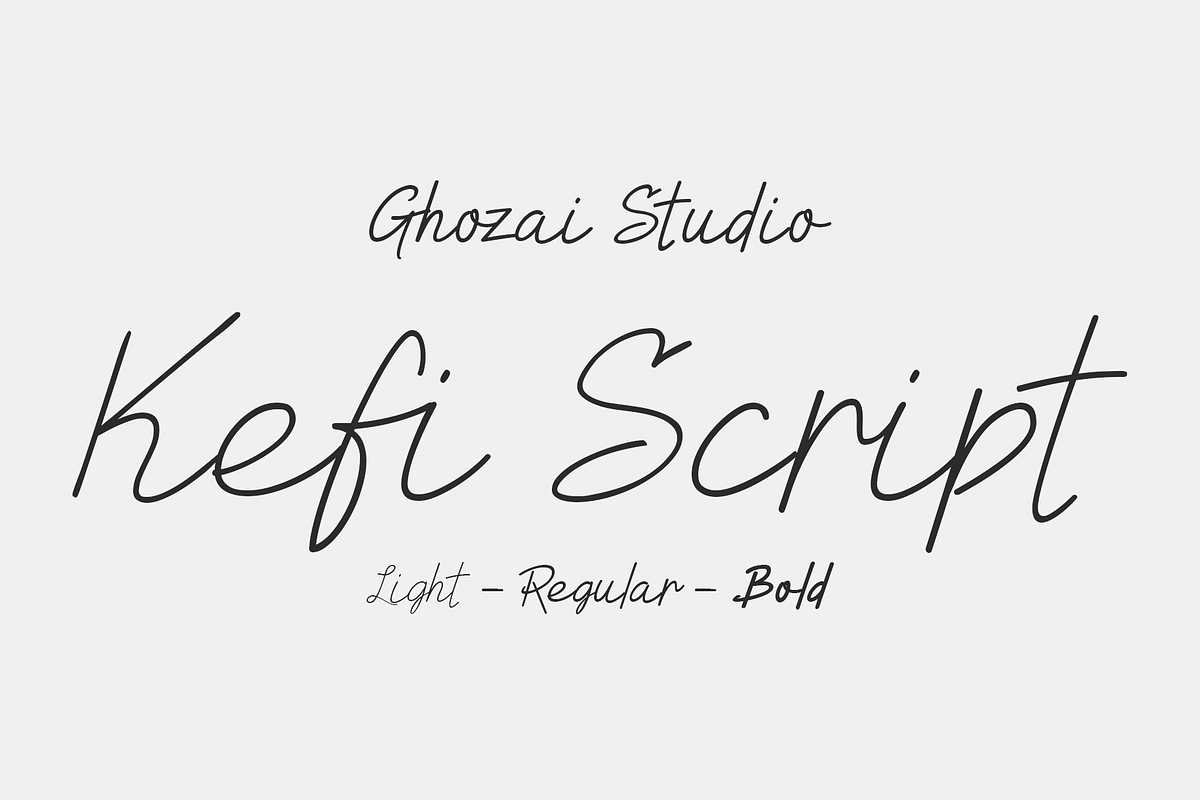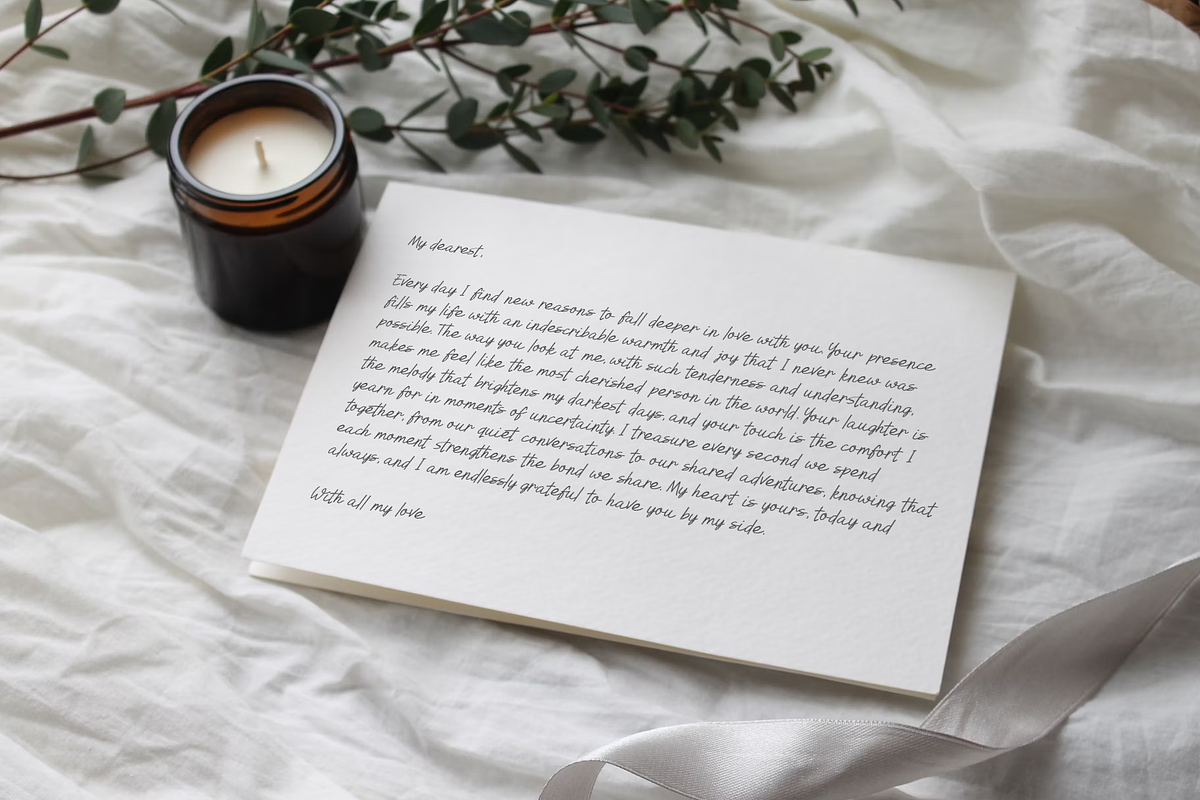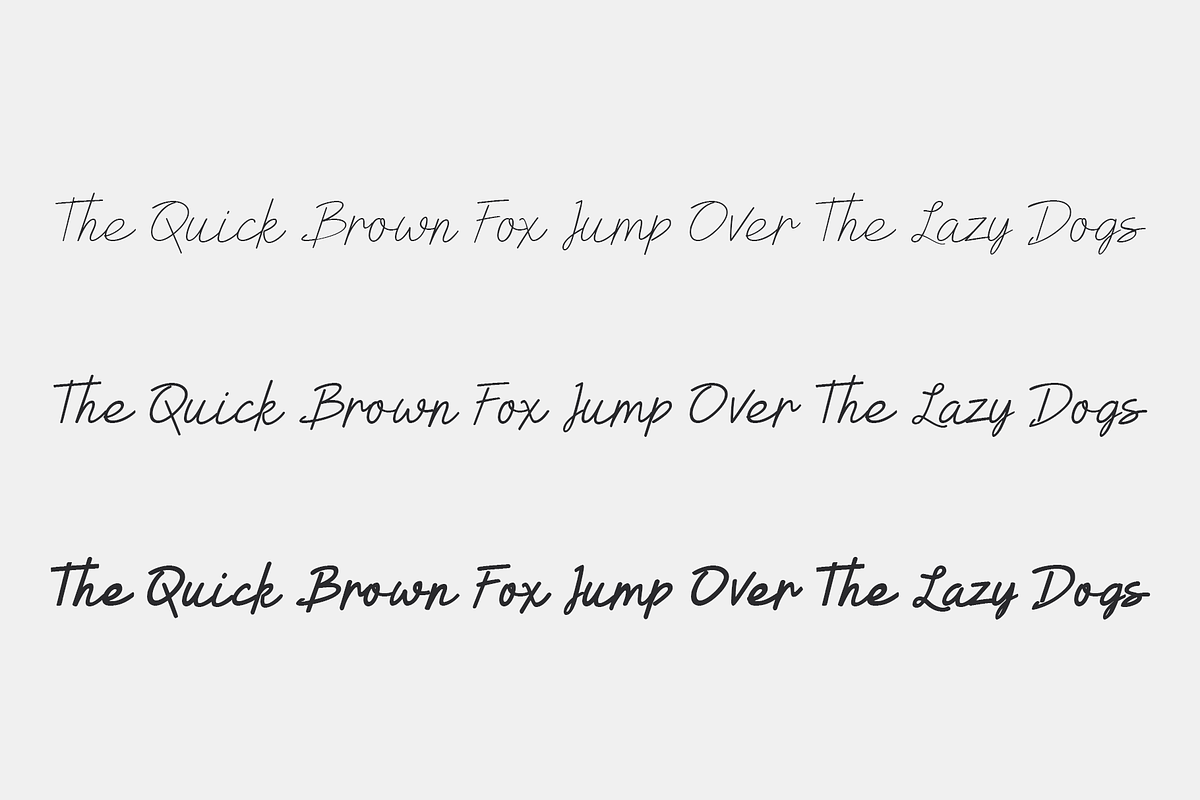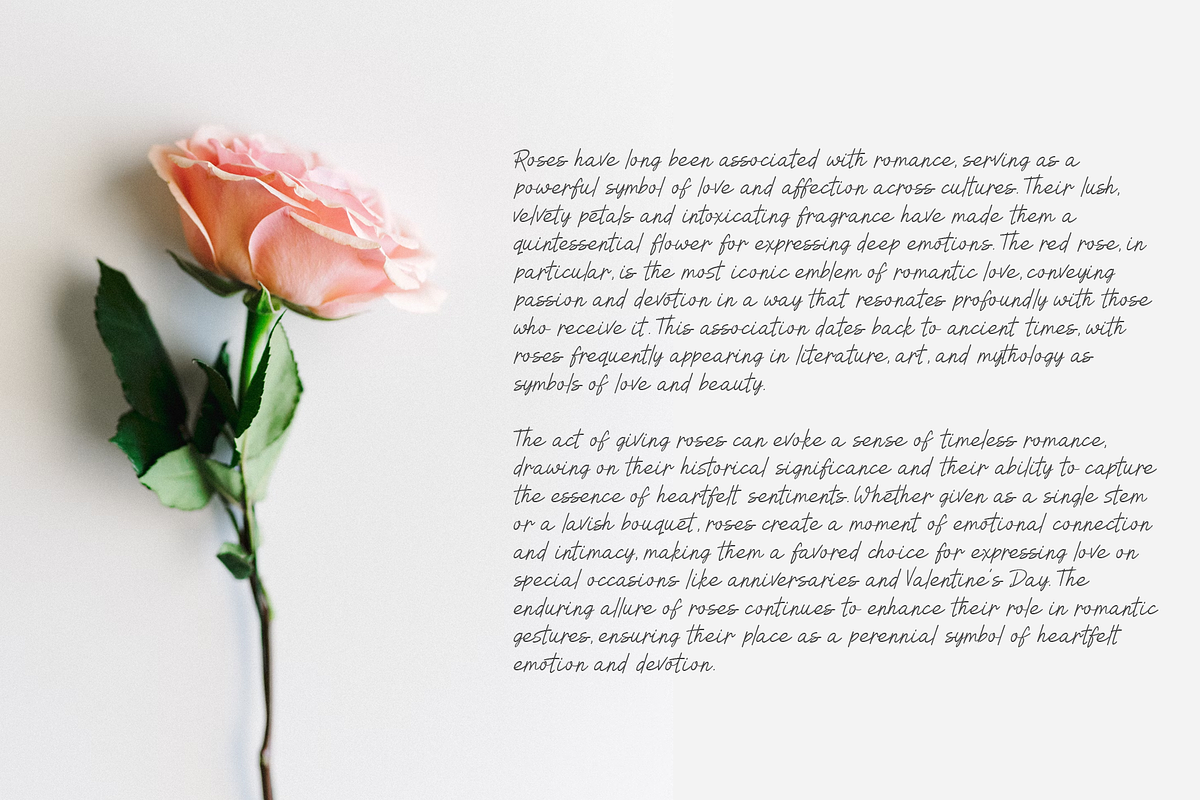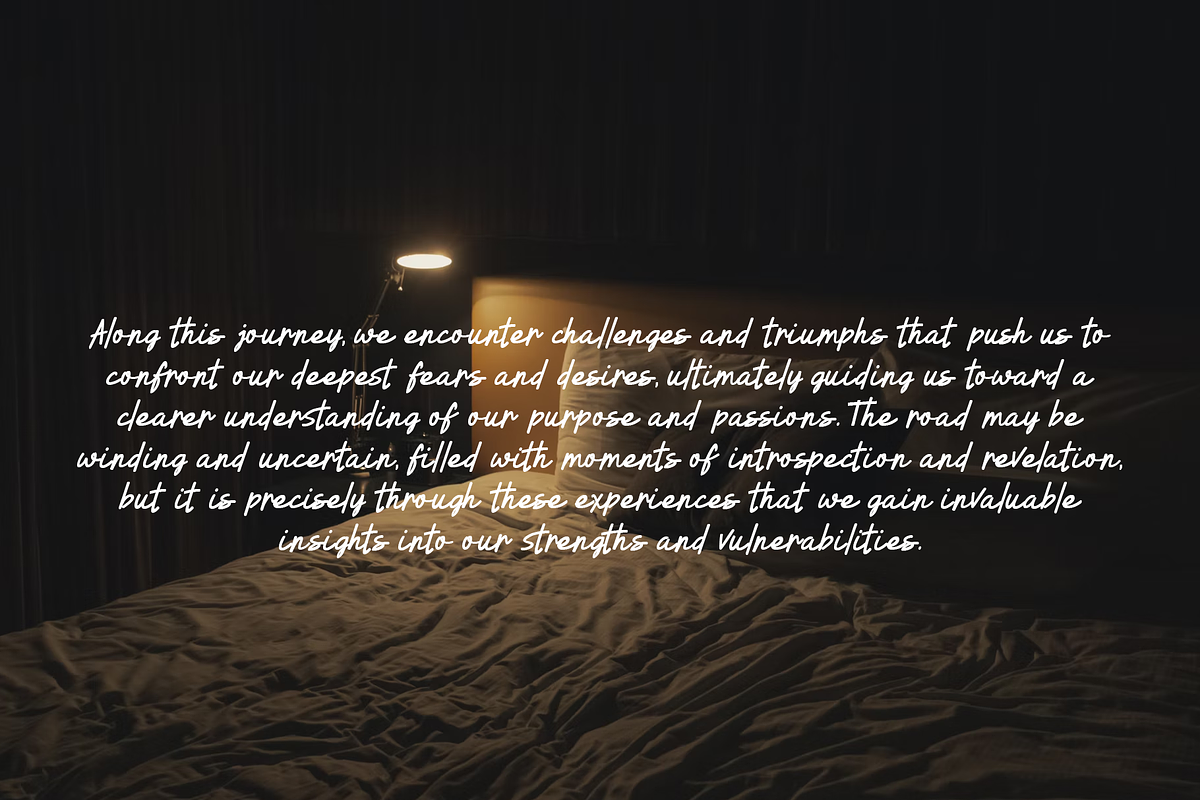
Kefi Script
Kefi Script is a handwritten font that adds an organic handmade touch to your visuals. Suitable for greeting cards, wedding stationery, apparel design, and more. Available in 3 styles, light, regular, and bold.